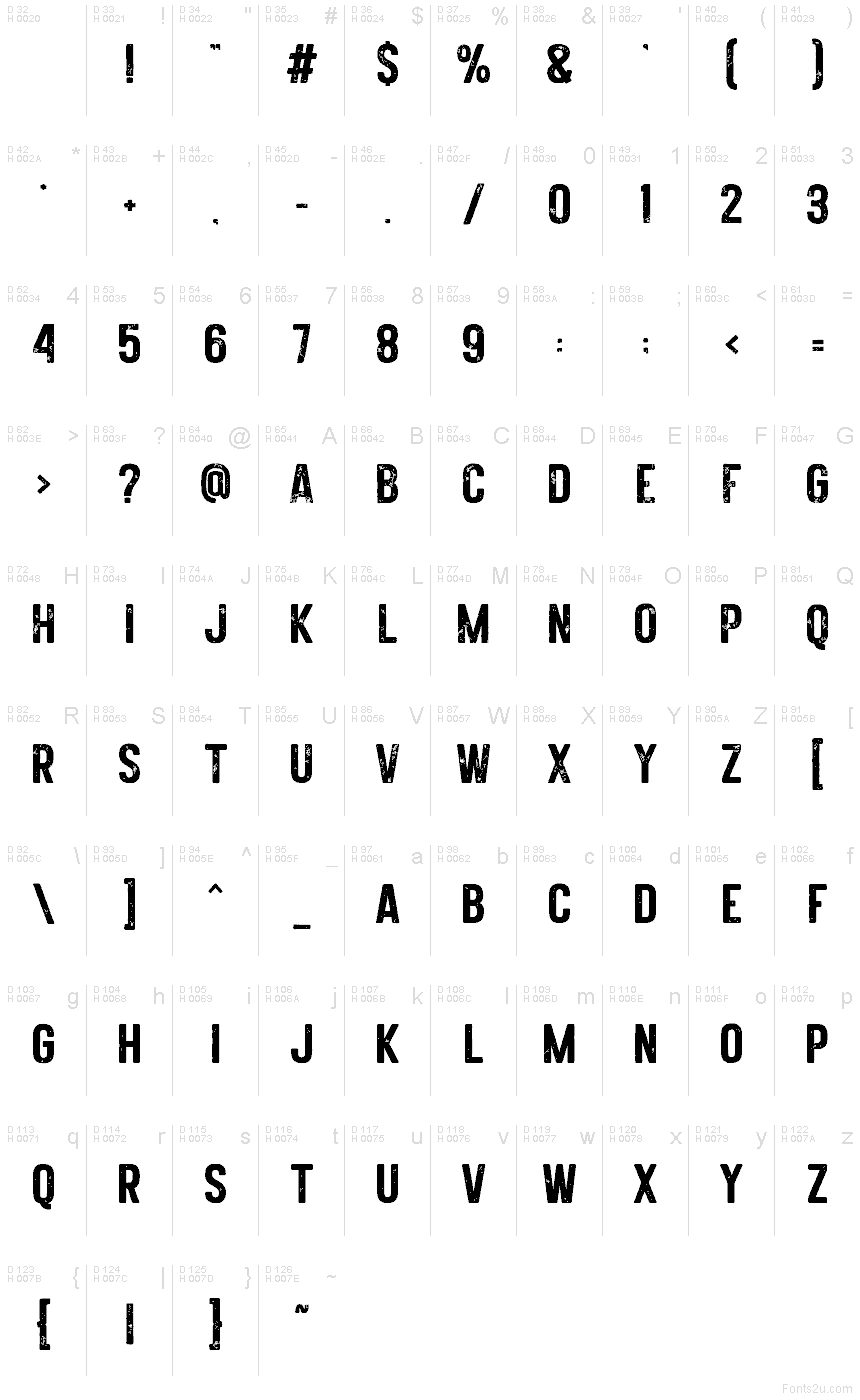
Votrag Texture Bold
Votrag Texture Bold font is a condensed eroded sans serif font designed with care and attention by PutraCetol Studio. A grunge textured look is the main characteristic of this old-school distressed typeface, in addition to its strong bold nature and retro vibe. Votrag has big and heavy characters that are clear, readable, and noticeable from far away.